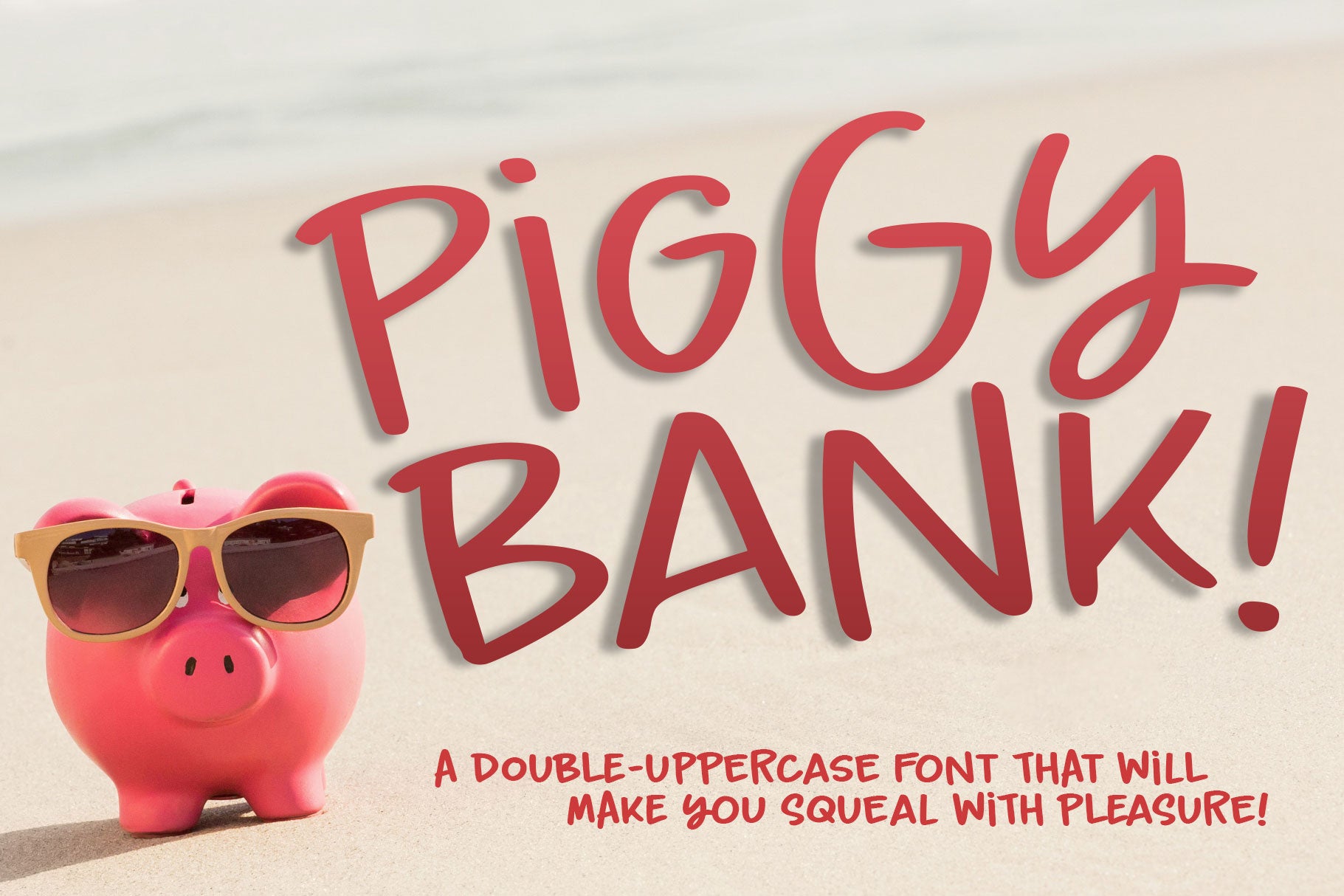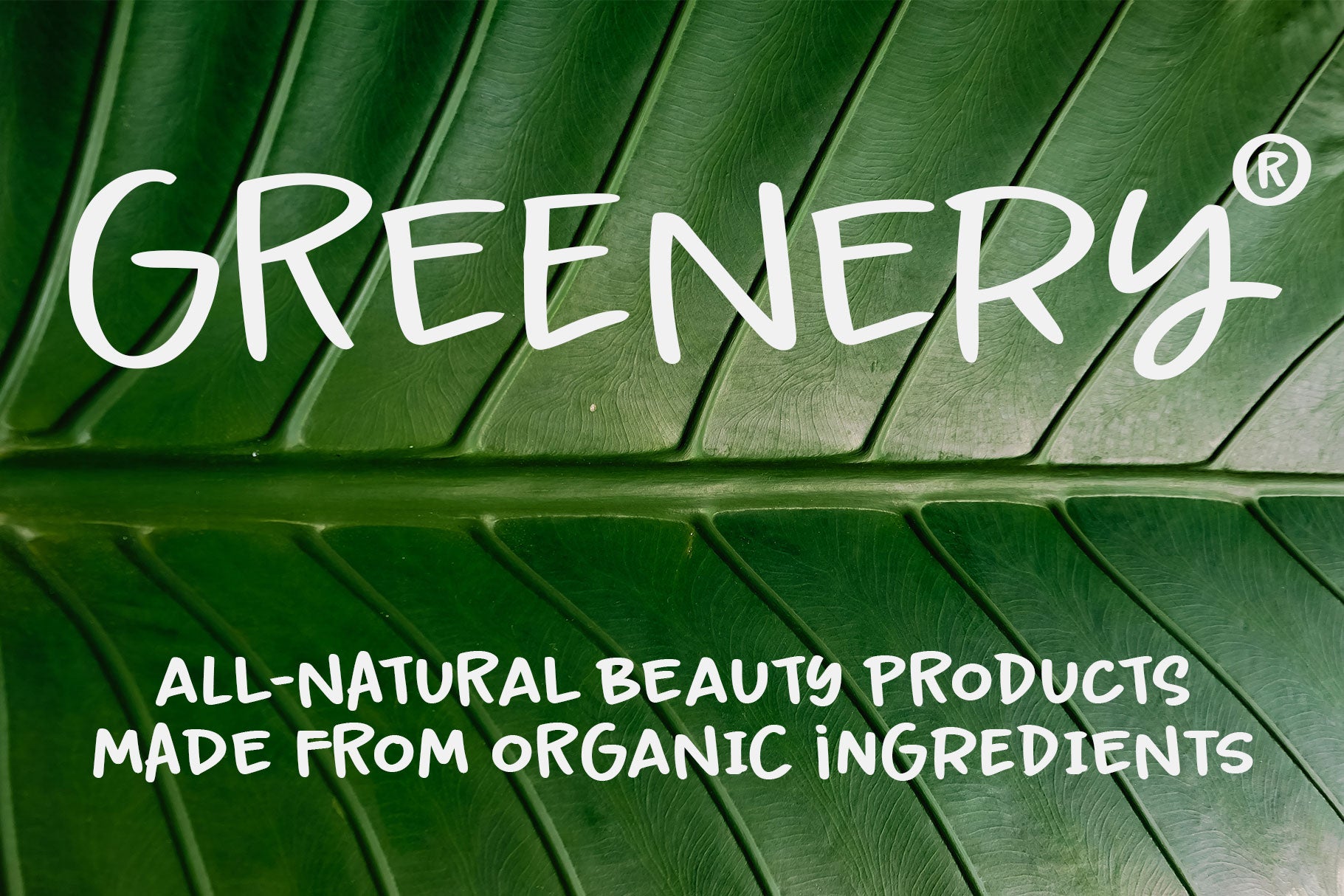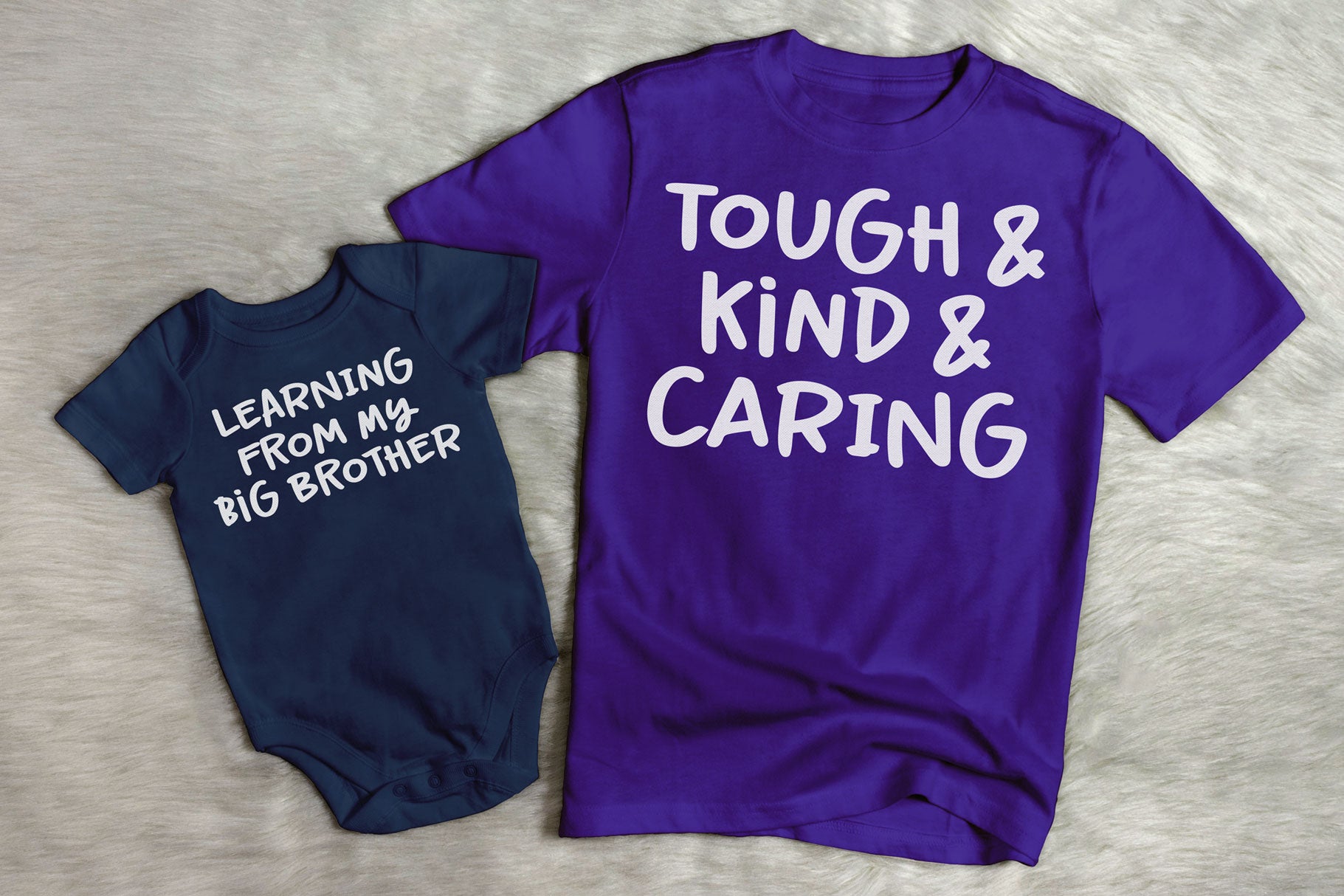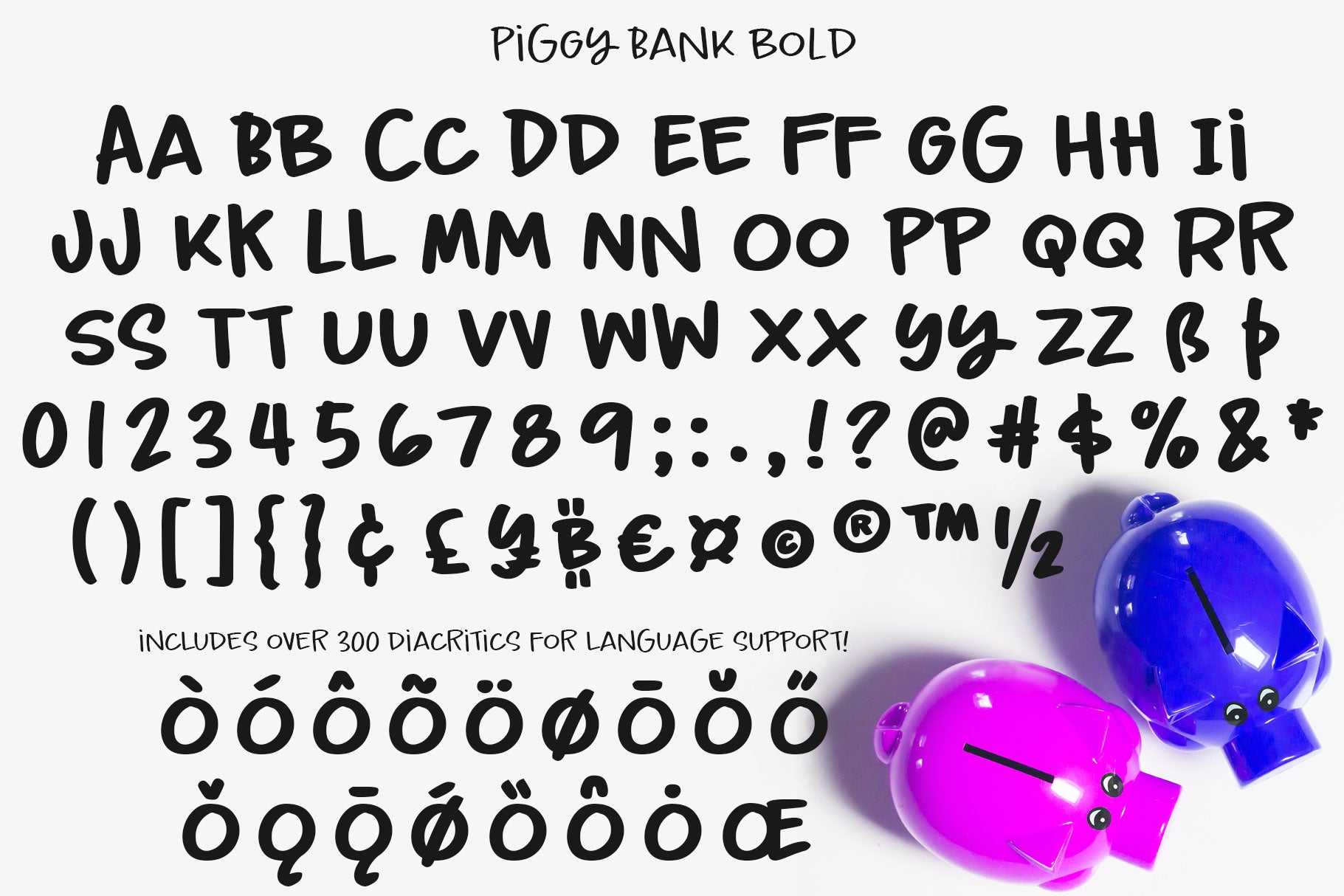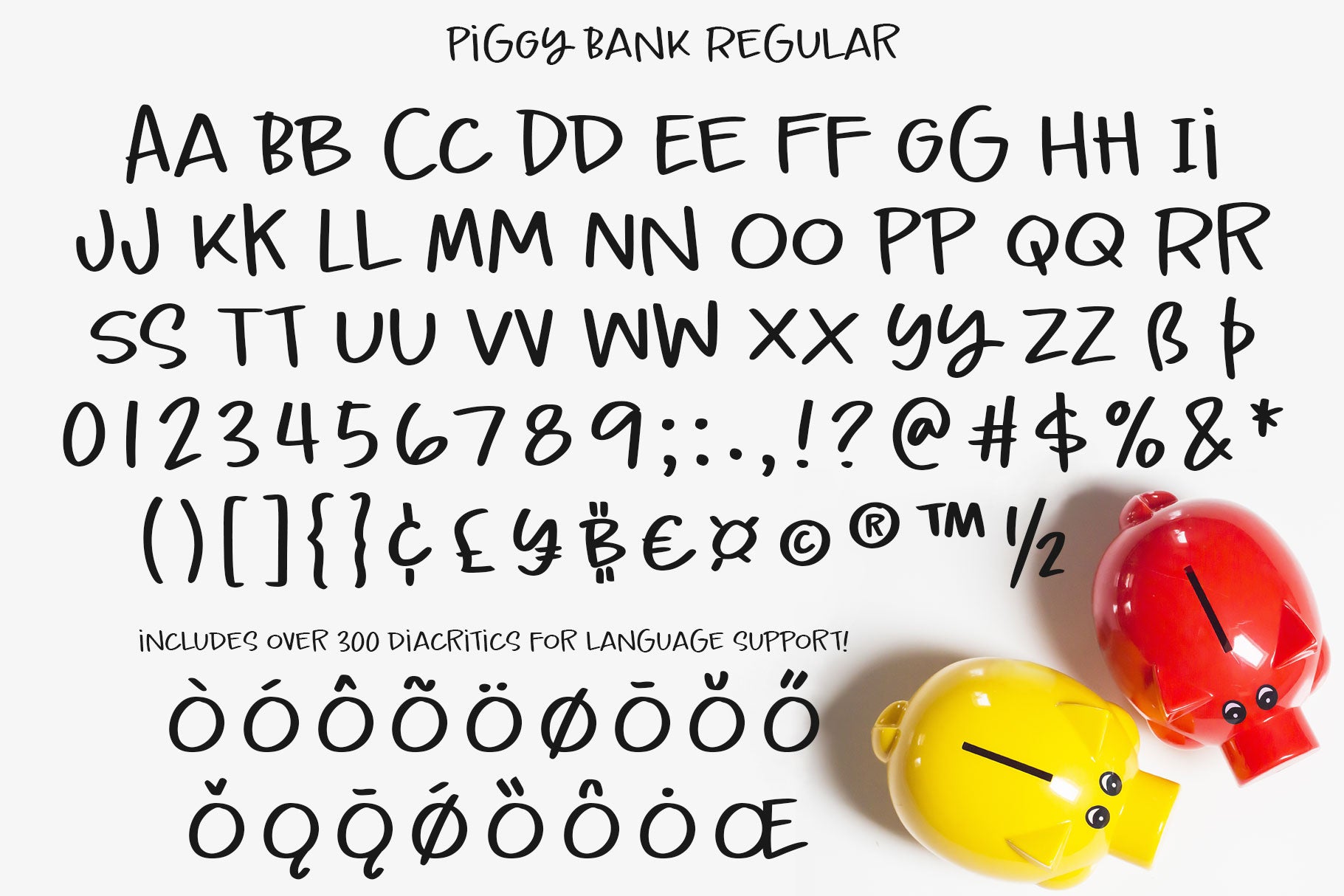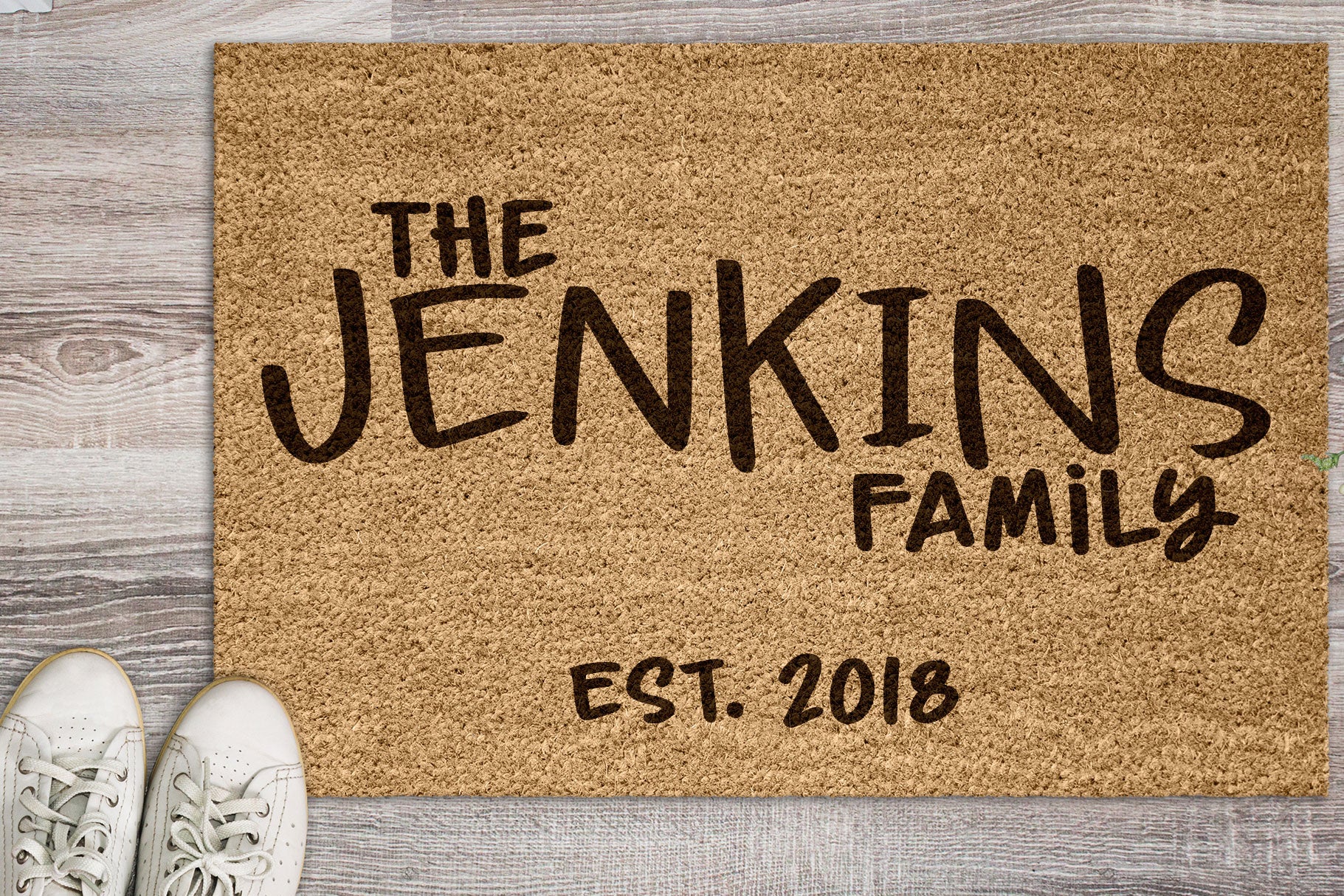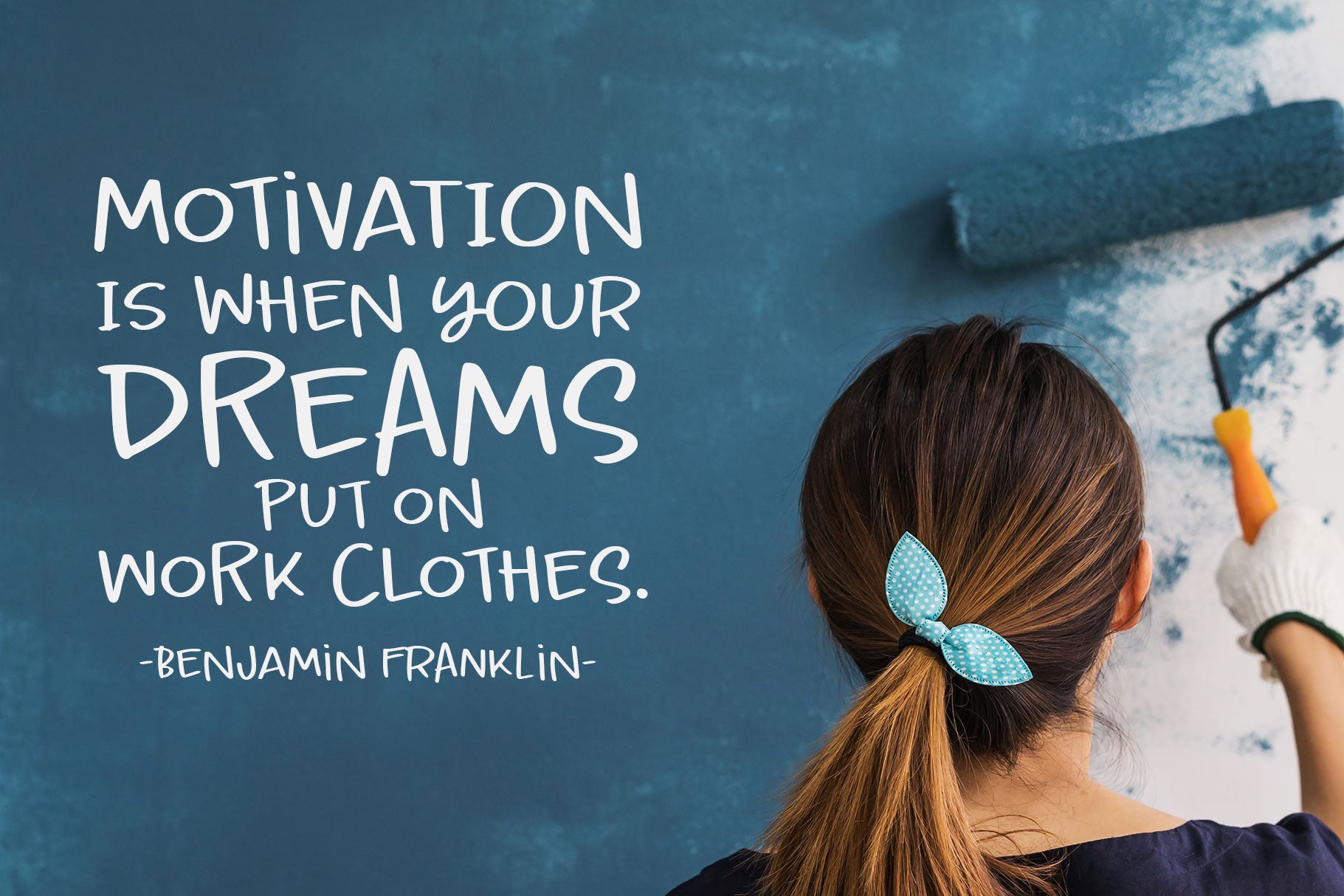
Piggy Bank is a fun casual handwriting font, smoothed and cleaned for cutting and crafting, but also sharp and crisp for print projects! It contains two uppercase sets of letters, so you can mix and match for a hand-written look. It's useful for everything from kids' designs to branding, from book covers to product packaging!
The Piggy Bank family contains two weights - regular and bold - so you have options that will be easy to read no matter how large or small your design will be. Plus, it has my usual 500+ glyphs, including tons of punctuation and over 300 extended Latin characters for language support!